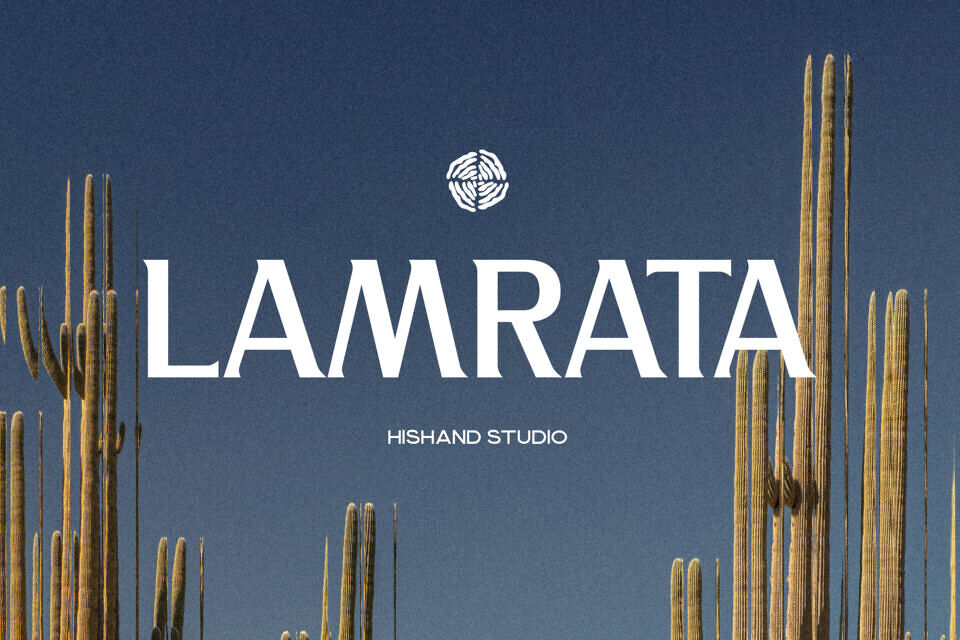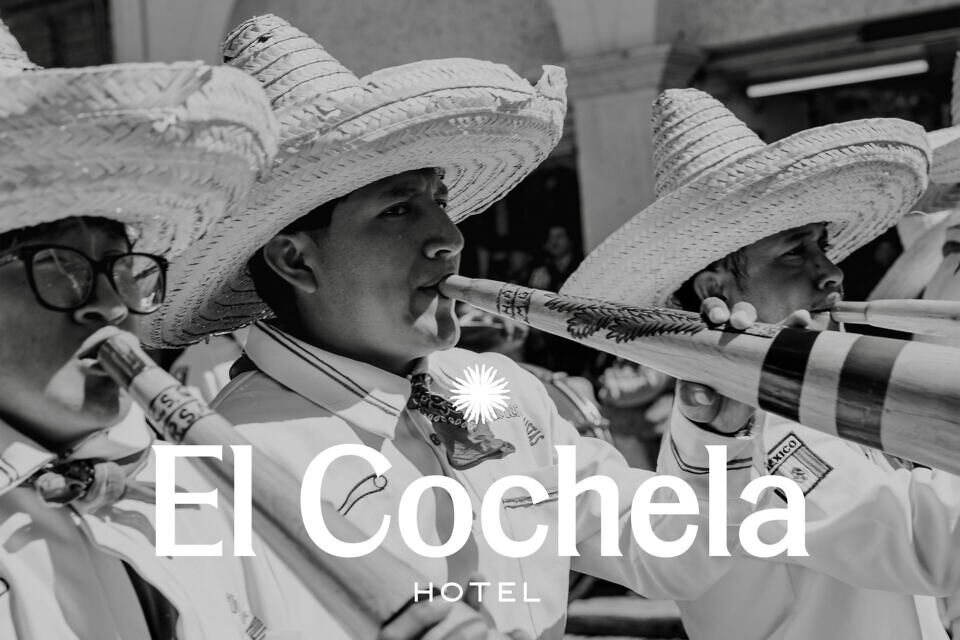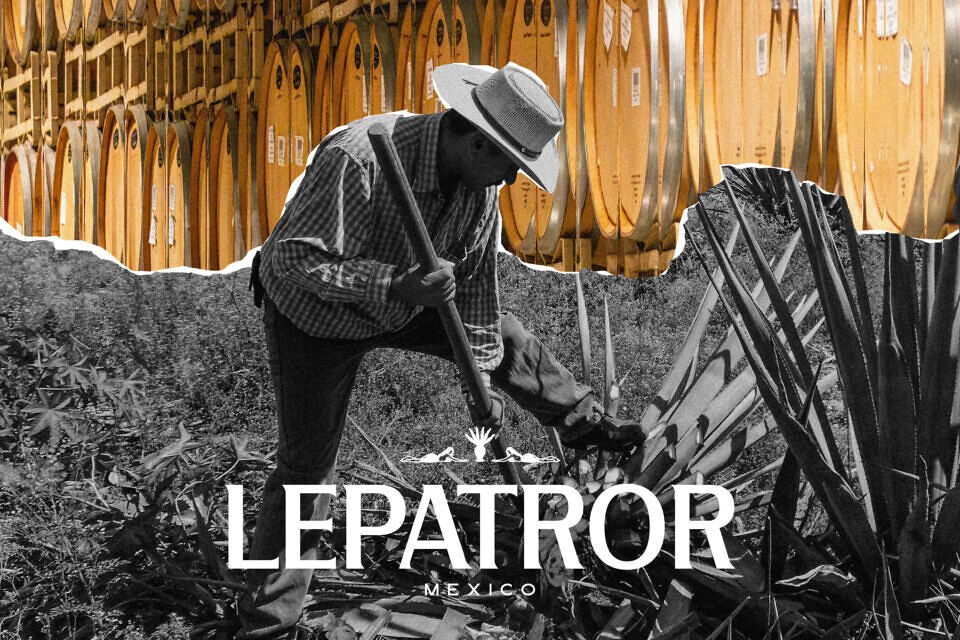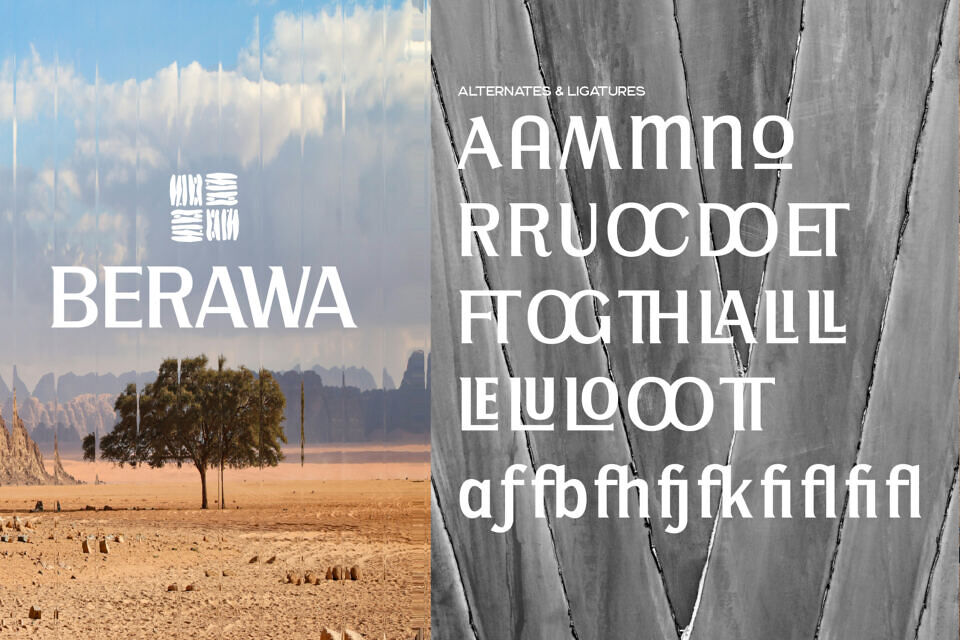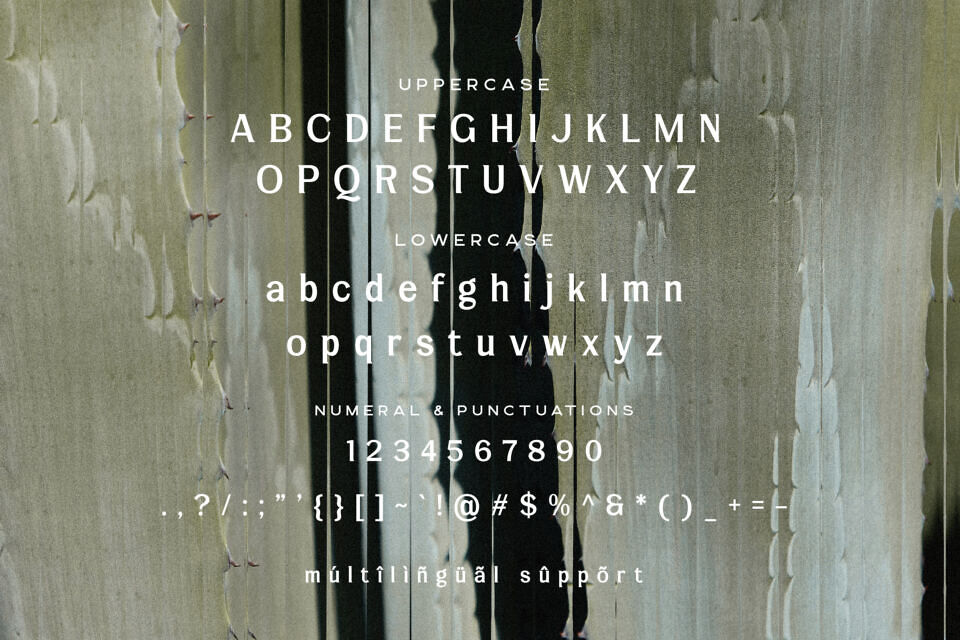
Lamrata Font
Lamrata is a display serif font that combines bold structure with refined, classic aesthetics. Built with strong, even strokes, it avoids thin contrasts and instead focuses on solid, confident letterforms. The serifs are subtle yet distinctive, adding just enough character to elevate the design while maintaining a clean and modern impression.
This font works particularly well for logos, branding, headlines, and packaging. Its strong presence helps establish a clear visual identity, while its refined details add a layer of sophistication. It gives your work a distinctive presence, with forms that feel bold, balanced, and carefully shaped.